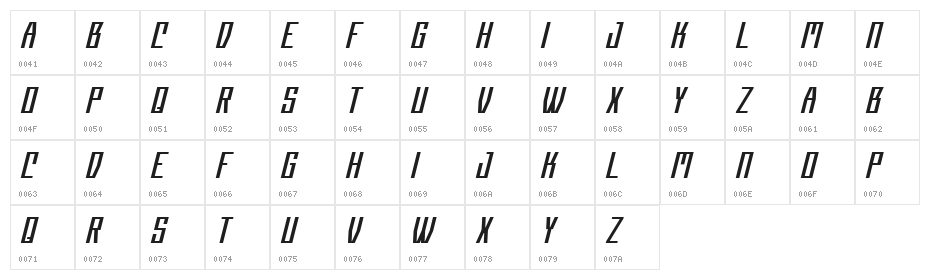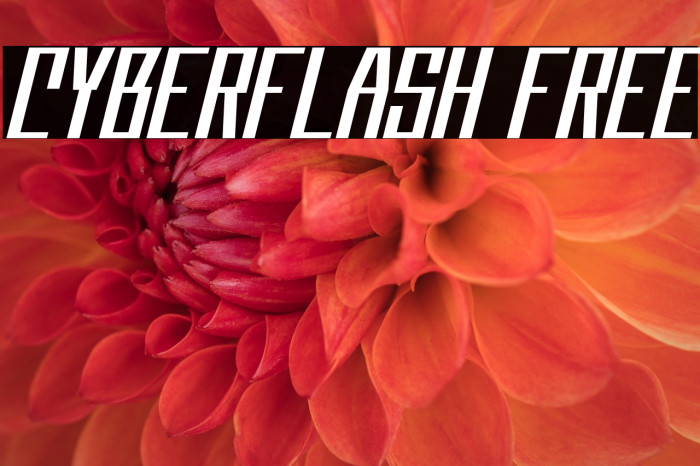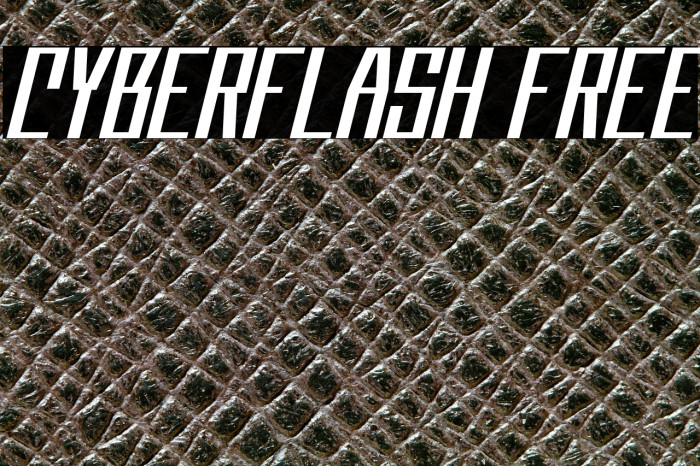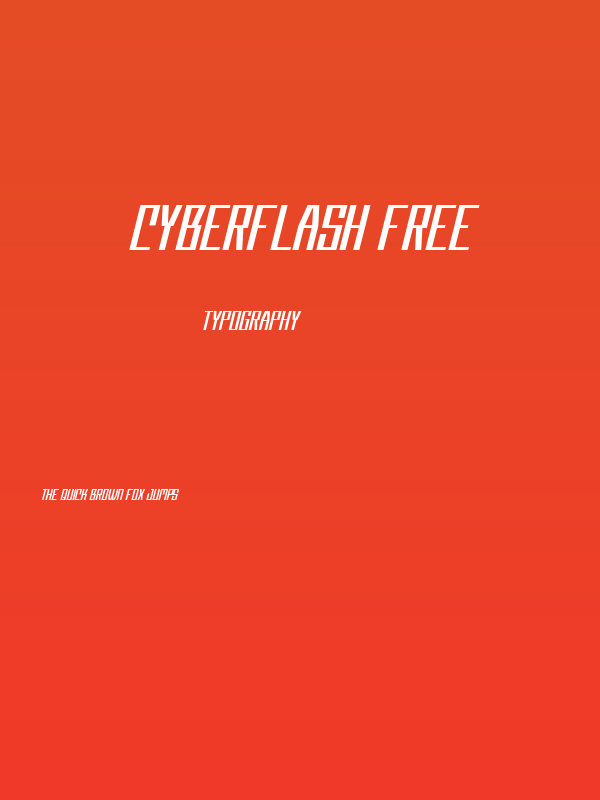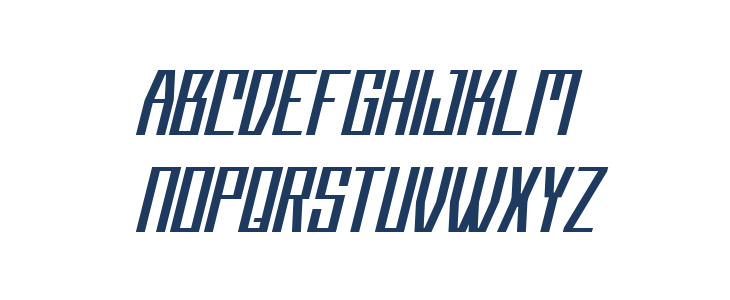
Cyberflash FREE Font
Cyberflash FREE Description
This font features a bold, futuristic design with sharp, angular lines and a distinct slant, giving it a dynamic and energetic appearance. The uppercase letters are elongated and slightly condensed, creating a sleek and modern look. The characters are tightly spaced, enhancing the compact and cohesive feel of the typeface. Its high contrast in stroke thickness adds to the striking visual impact, making it ideal for attention-grabbing headlines and titles. The overall style is distinctly modern and tech-inspired, suitable for projects that require a cutting-edge and innovative aesthetic.
| Proposed Projects | Ideal for technology branding, sci-fi posters, video game titles, and modern advertising. |